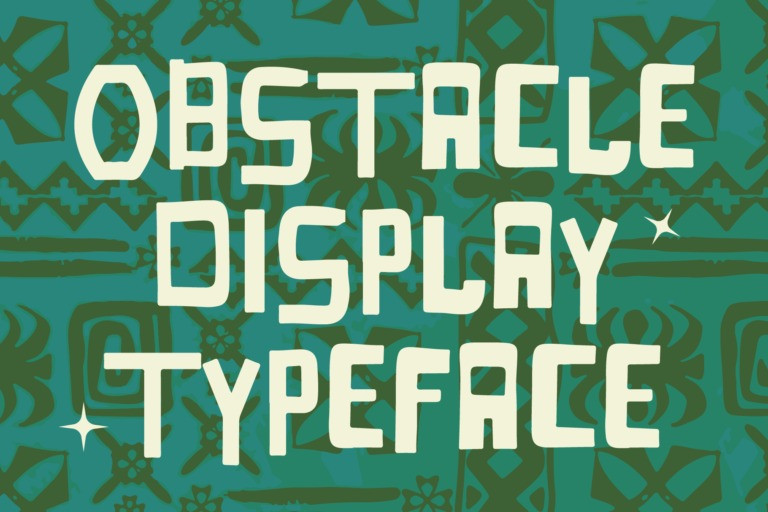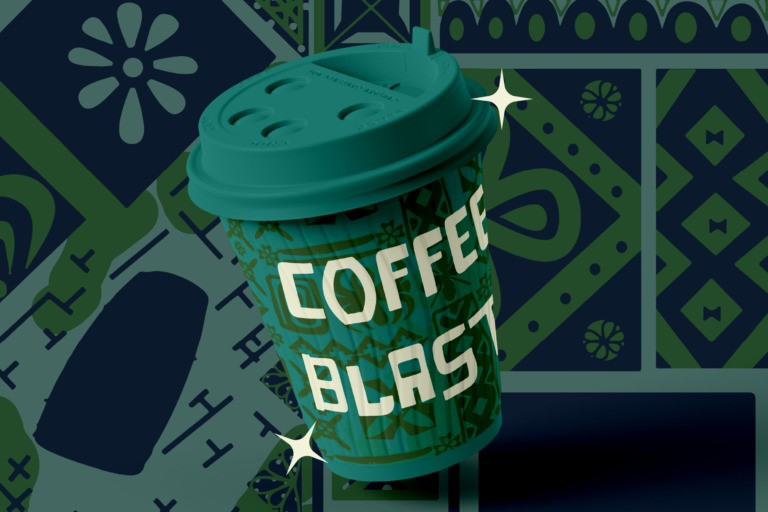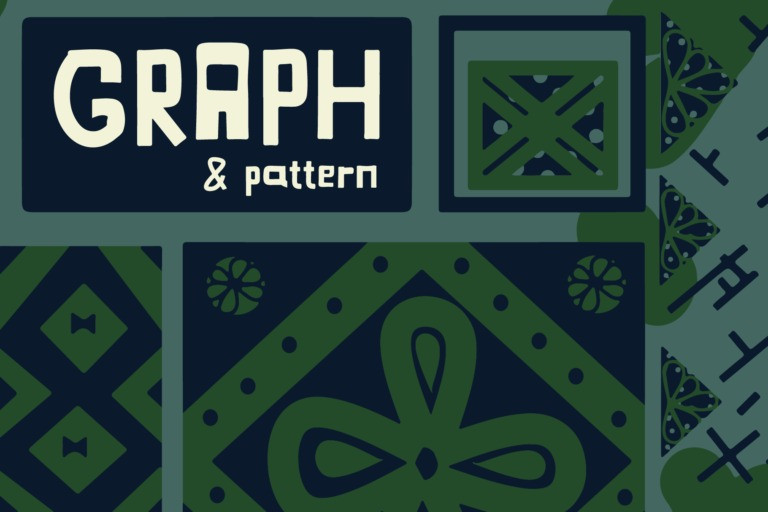
Obstacle Display Font
Obstacle, a display font that inspired by a vintage typeface from a hit animated television series from the ’90s, but heavily influenced by modern art style. With its free and contemporary style, this font specifically design to complement your creative project.